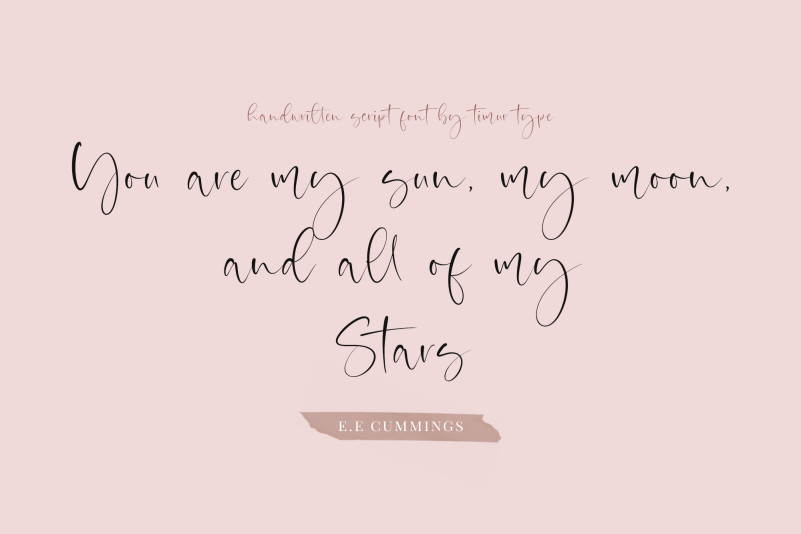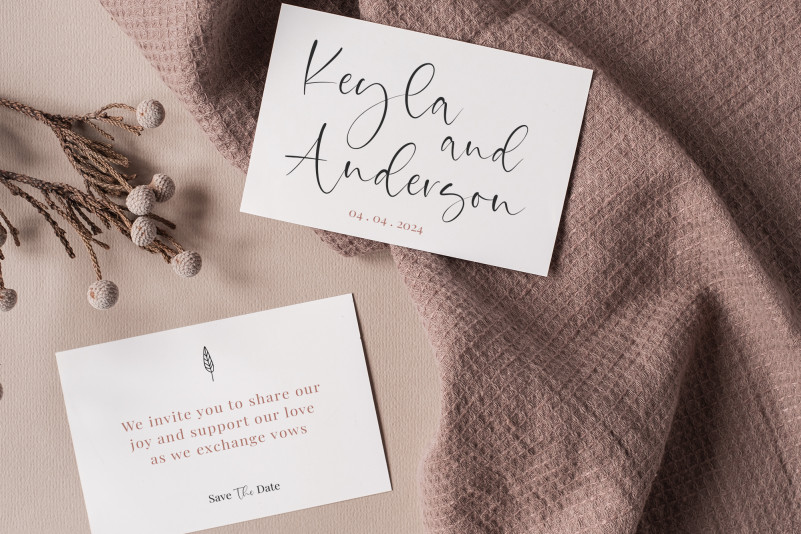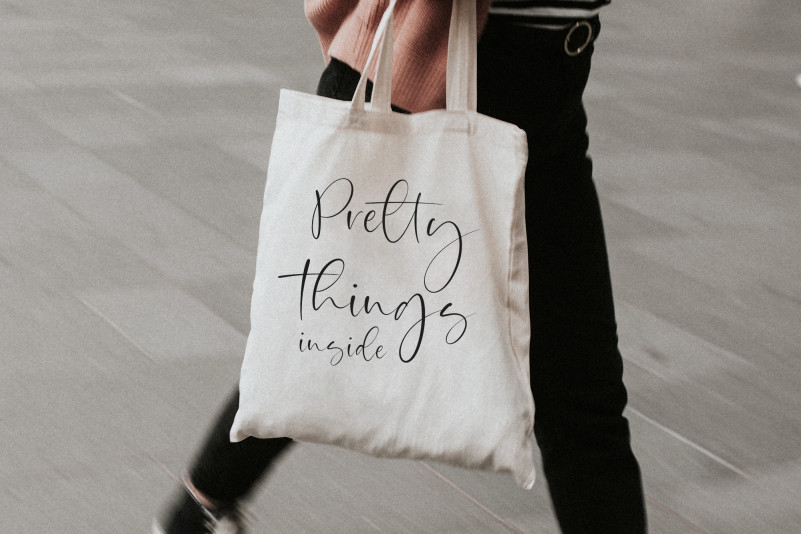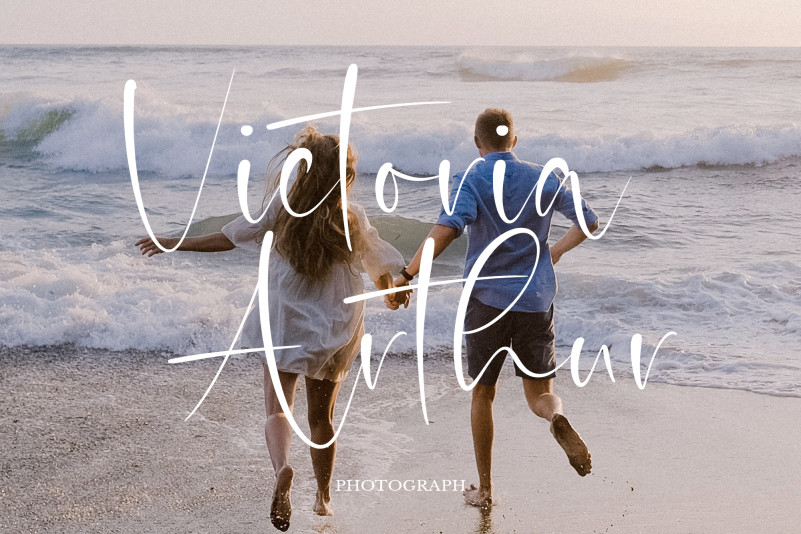
Valentine Beauty Font
Valentine Beauty Font is a  Handwritten script font that is modern and fresh, and will bring a warm and inviting feel to your business. Take advantage of the fonts and experience the magic for yourself.
Valentine Beauty  is perfect for product packaging, branding project, megeenazine, social media, wedding, or just used to express words above the background.